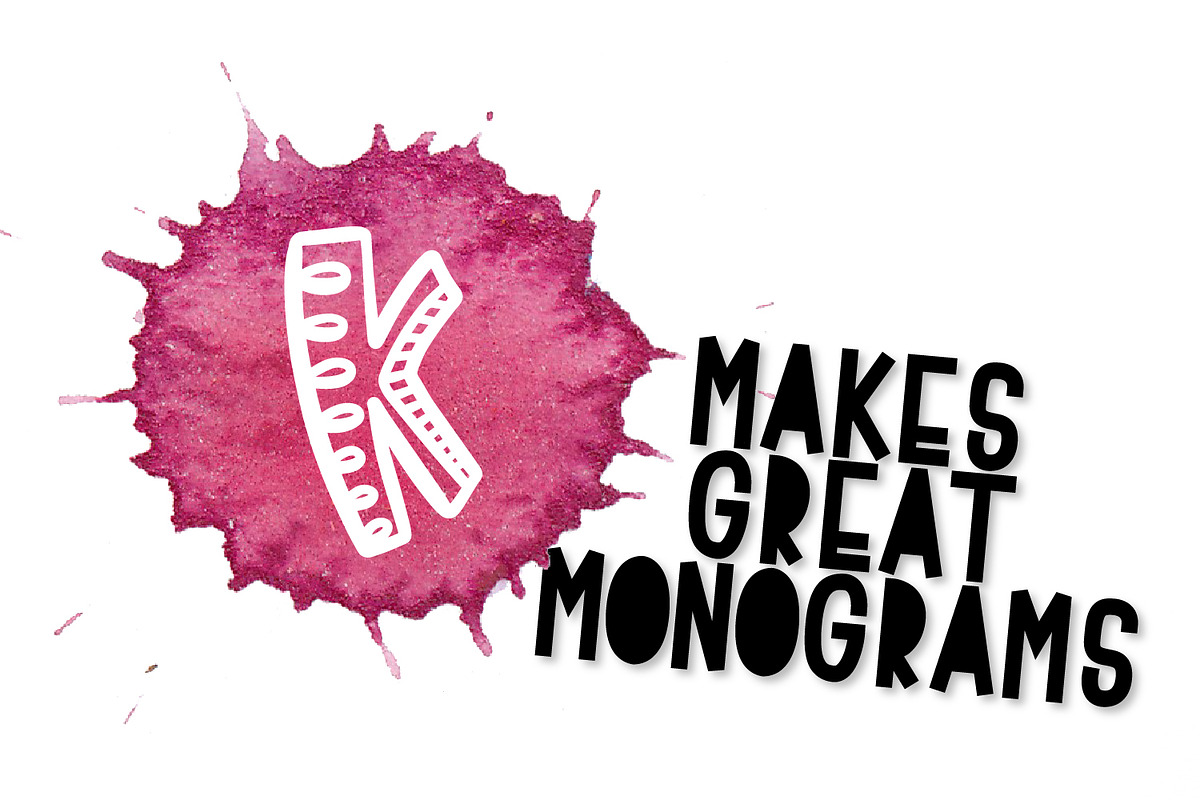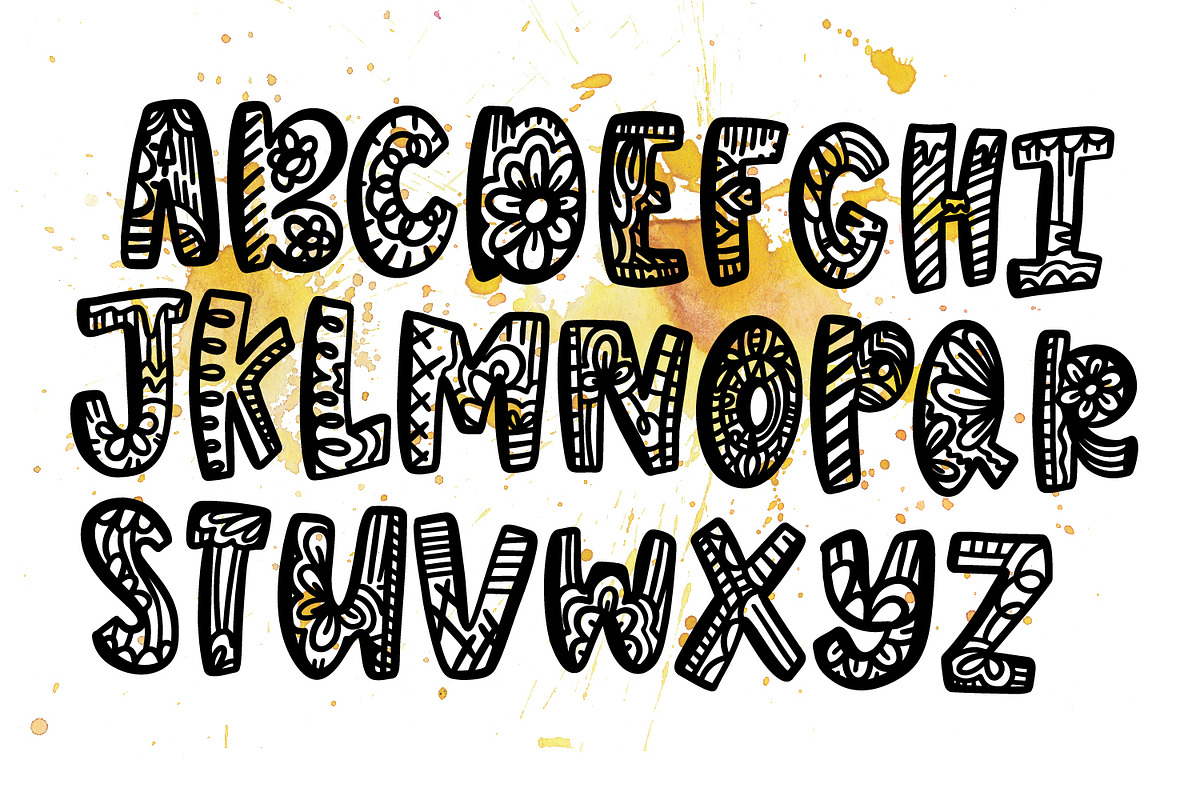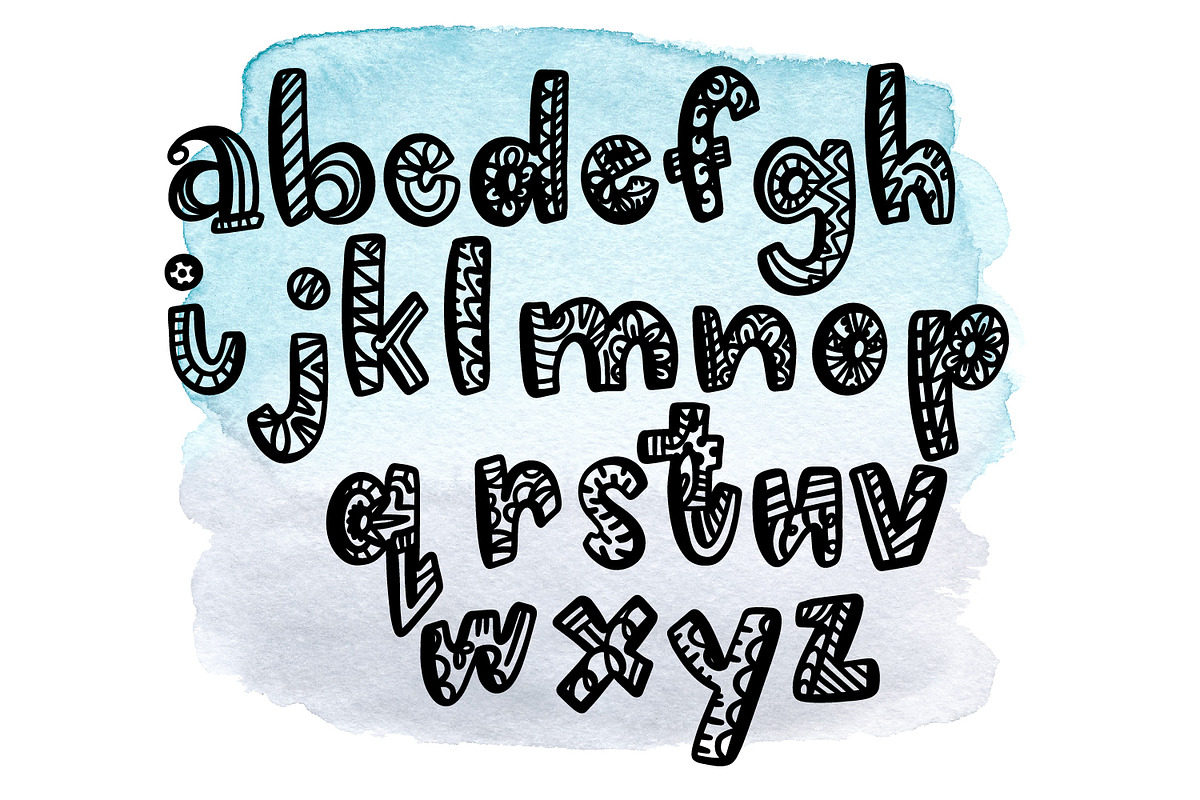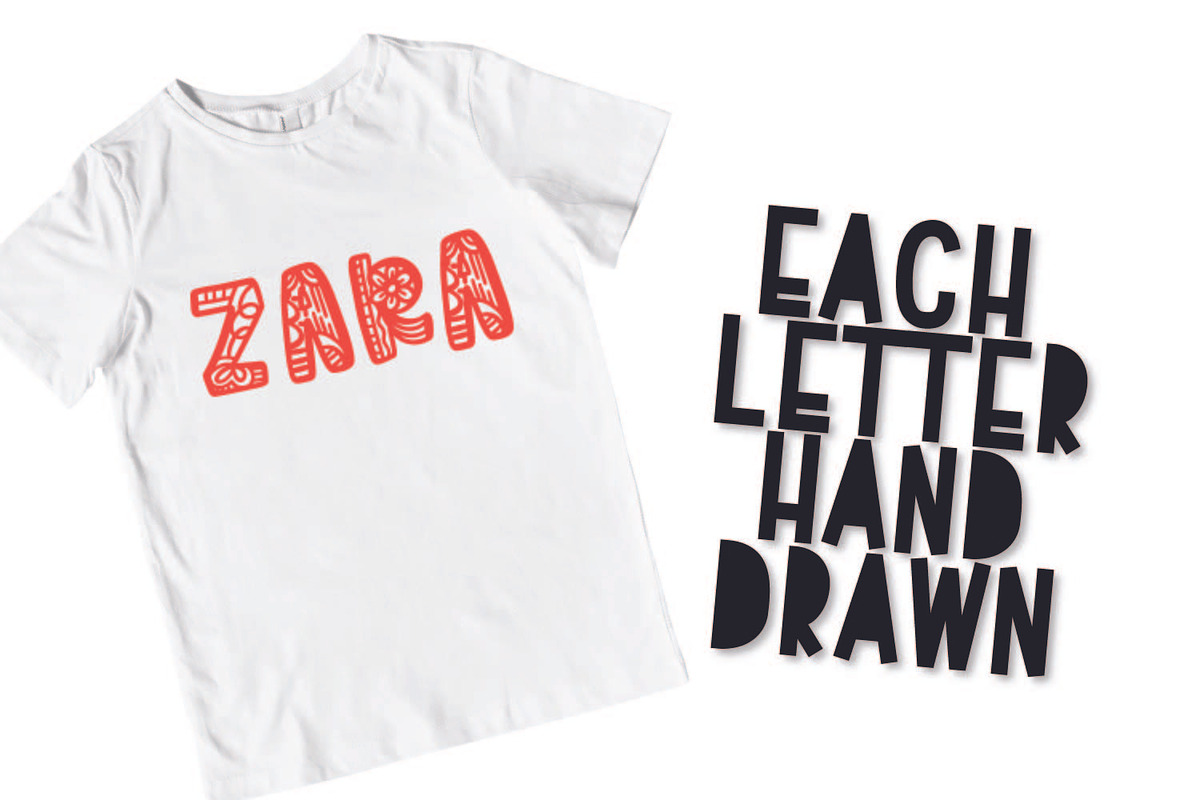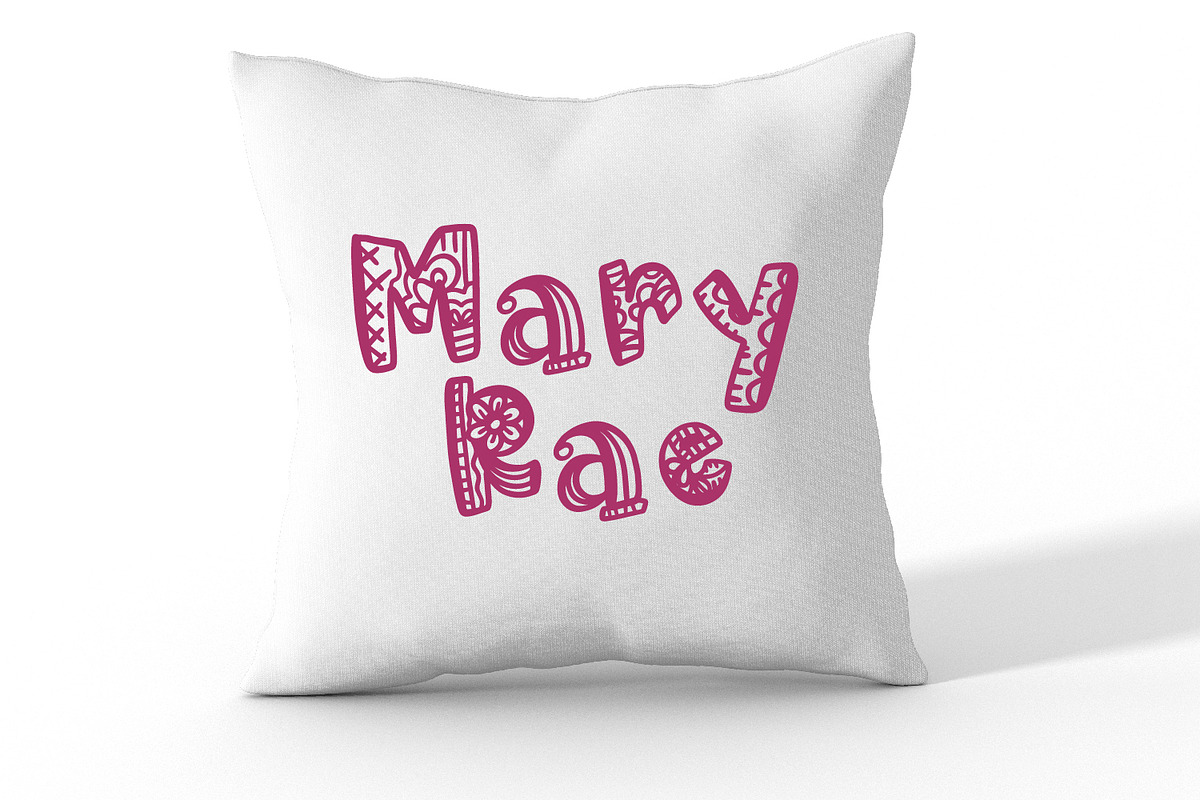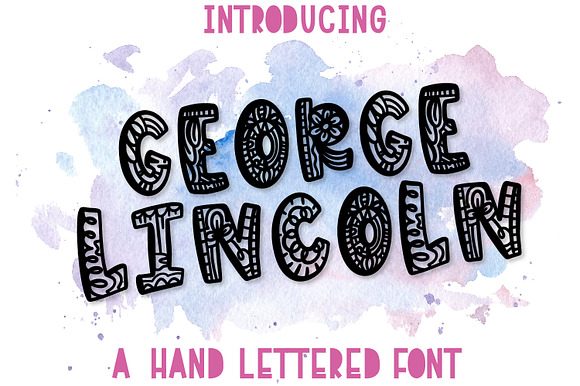
George Lincoln - A Silly Drawn Font
George Lincoln A Silly Drawn Font by CraftyLittleNodes is a font selected for branding, posters, packaging, typography.
Why George Lincoln - A Silly Drawn Font is worth a look
George Lincoln - A Silly Drawn Font by CraftyLittleNodes fits naturally into Branding, posters, packaging, typography.